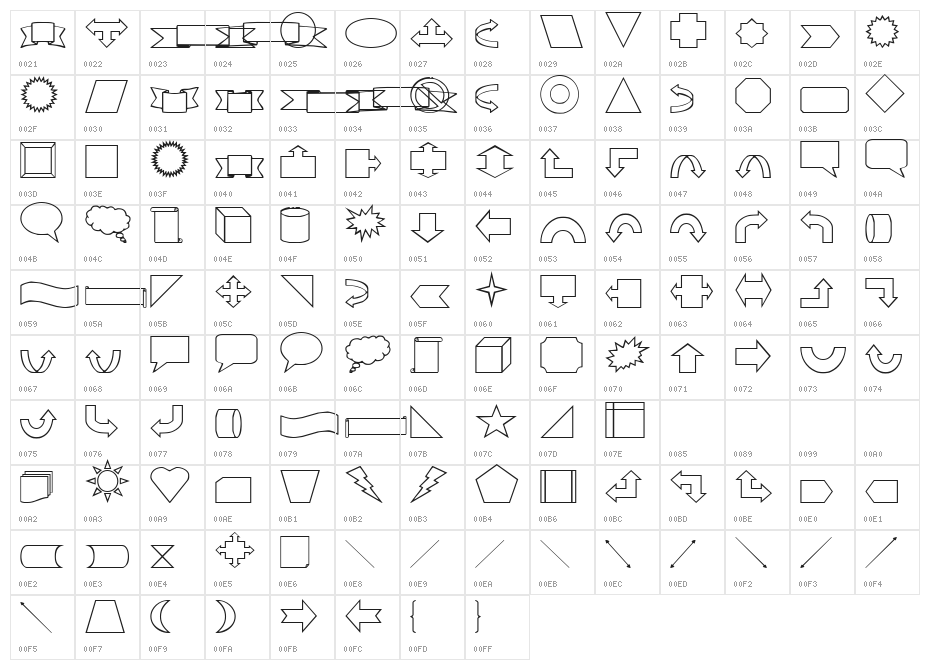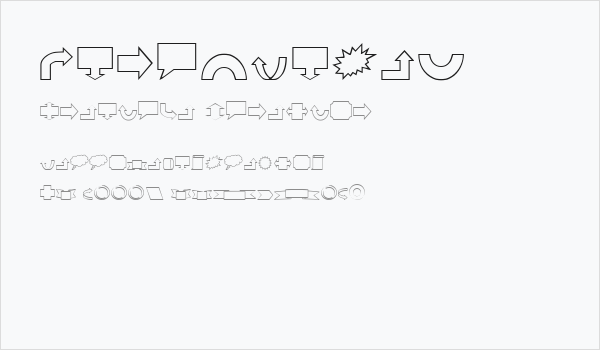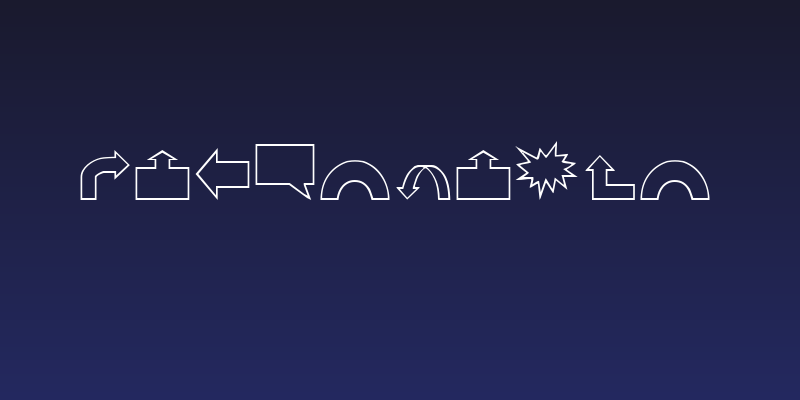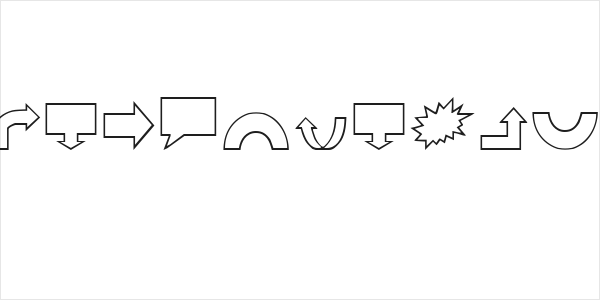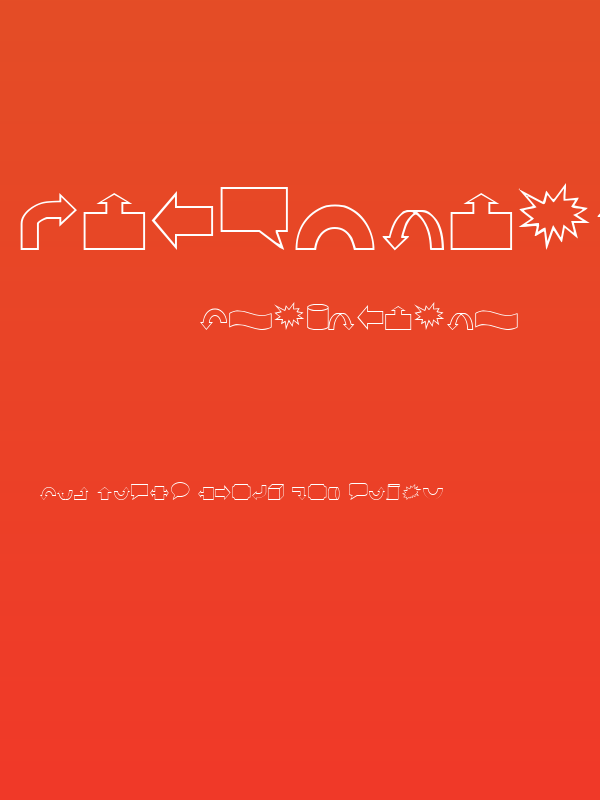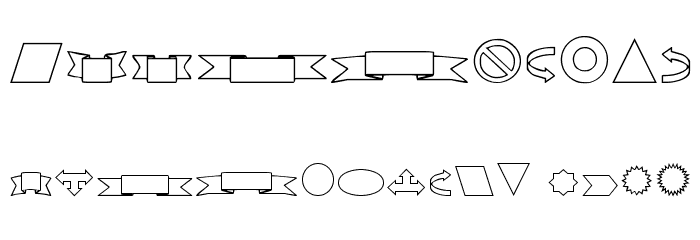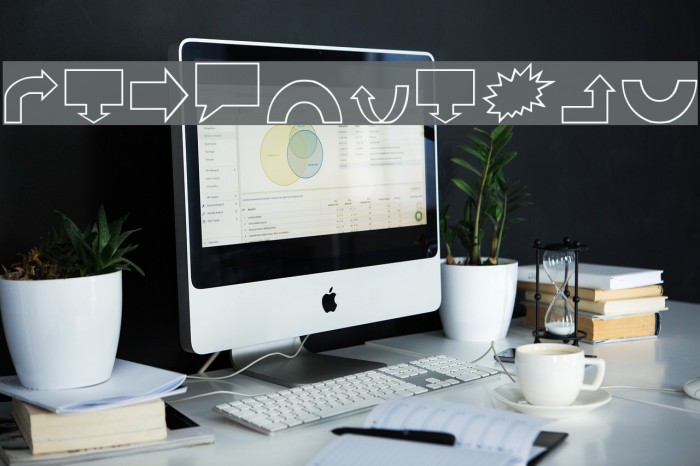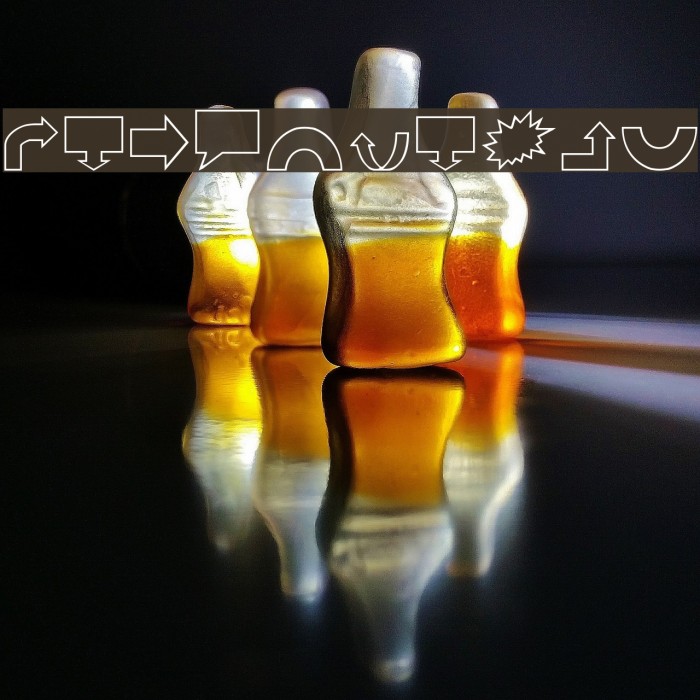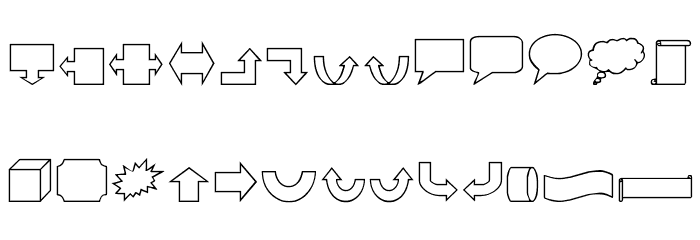
VariShapes Font
VariShapes Description
A collection of outlined geometric shapes, arrows, speech bubbles, banners, and various symbols, all rendered with consistent line weight and no fill. The style is playful and functional, suitable for diagrams or infographics.
| Overall Style | Decorative, Modern |
| Use Case | Icons, visual aids, graphic elements, signage. |
| Proposed Projects | Infographics, educational materials, diagrams, comic panels, presentations. |